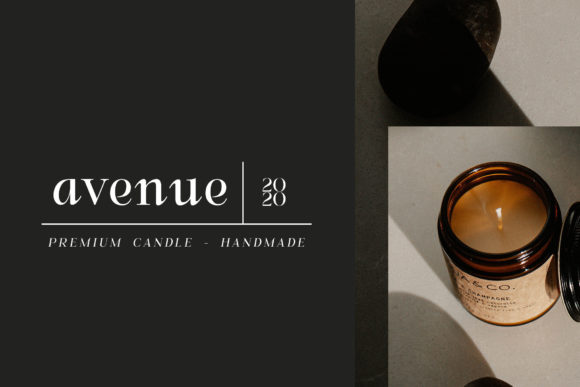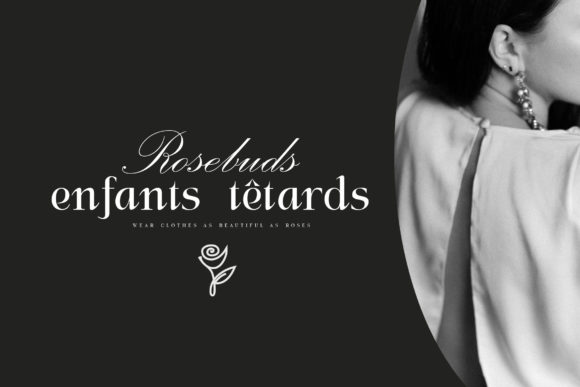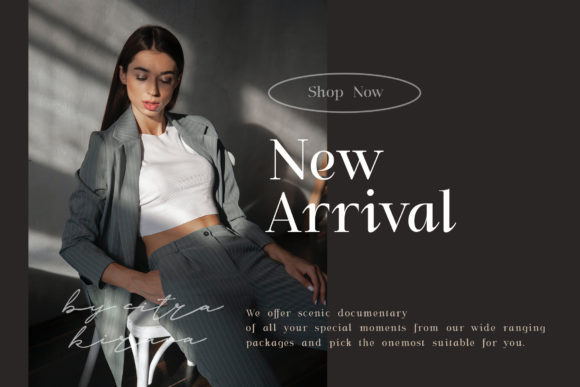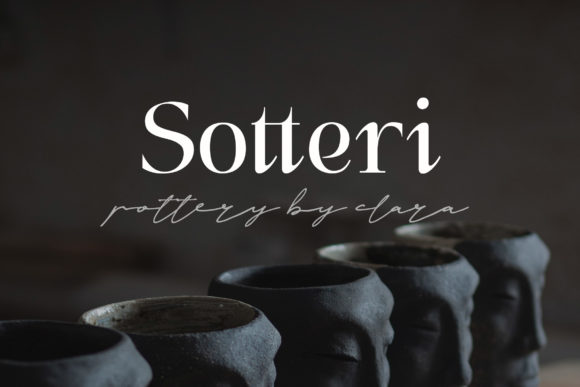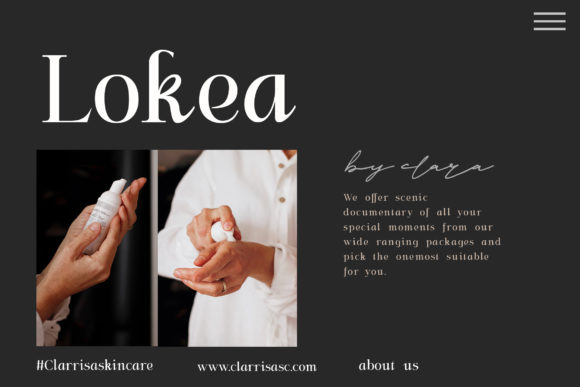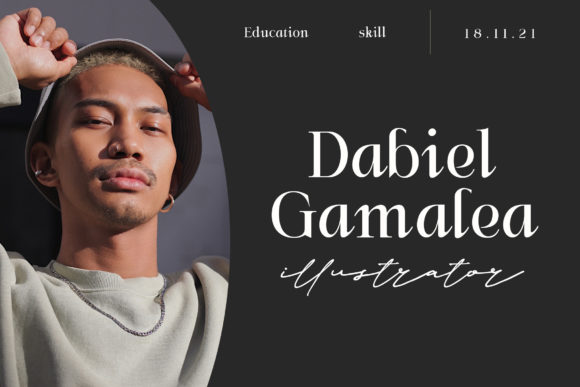
Unleash Your Creativity with Aerotine Font
Have you ever stared at a blank page, waiting for inspiration to strike? For many of us, the creative process can be a thrilling yet daunting experience. But what if you had the perfect tool to help spark your imagination and bring your ideas to life? Enter the Aerotine Font, a game-changing serif font designed to elevate your creations and leave a lasting impression.
Whether you’re a seasoned designer or just starting out, the Aerotine Font is an incredible asset to have in your toolkit. Its assertive and cool design makes it perfect for a wide range of applications, from bold headlines to elegant body text. With the Aerotine Font, you’ll be able to add a touch of sophistication and style to any project, making it a valuable addition to your font library.
- Unique Characteristics: The font features a unique blend of modern and vintage elements, with a distinctive aerodynamic feel, perfect for creating a sense of movement and dynamism in designs.
Aerotine Font Review
Overall, I think Aerotine Font is a solid addition to any designer’s toolkit. ✨ Its modern and sleek design makes it perfect for any project that requires a touch of sophistication. I’ve used it for a few branding projects and the results have been great. The font’s versatility and readability make it a great choice for digital and print media.
- ✨ Modern and sleek design, perfect for modern projects
- ✨ Highly versatile, suitable for digital and print media
- ✨ Readability is top-notch, easy to read even at smaller font sizes
- ✨ Great for branding projects, adds a touch of sophistication
- ⚠️ Limited language support, may not be suitable for projects requiring multiple languages
- ⚠️ Some characters may not be available or may look inconsistent across different platforms
- ⚠️ May not be the best choice for projects requiring a lot of emphasis or bold typography
Aerotine Font is a solid choice for any designer looking for a modern and sleek font. While it may have some limitations, its versatility and readability make it a great addition to any toolkit. I’d definitely recommend it for any project that requires a touch of sophistication.
Aerotine Font is ideal for:
Designing elegant headings and titles.
Creating typography-heavy designs, such as posters or brochures.
Adding a professional touch to presentations and reports.